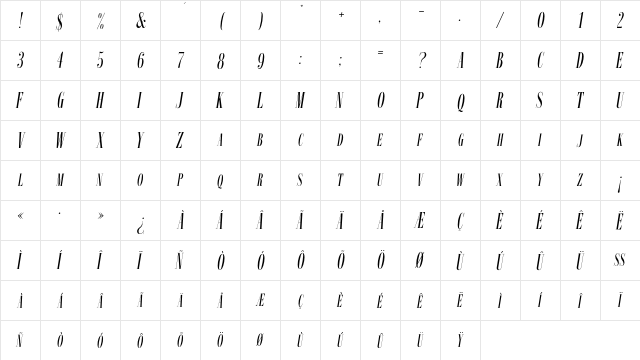
ImprimeurNouveauEF Obl
Design Context for ImprimeurNouveauEF Typeface
ImprimeurNouveauEF takes a measured approach to typography — its balanced proportions and neutral character make it a reliable workhorse for both digital and print work.